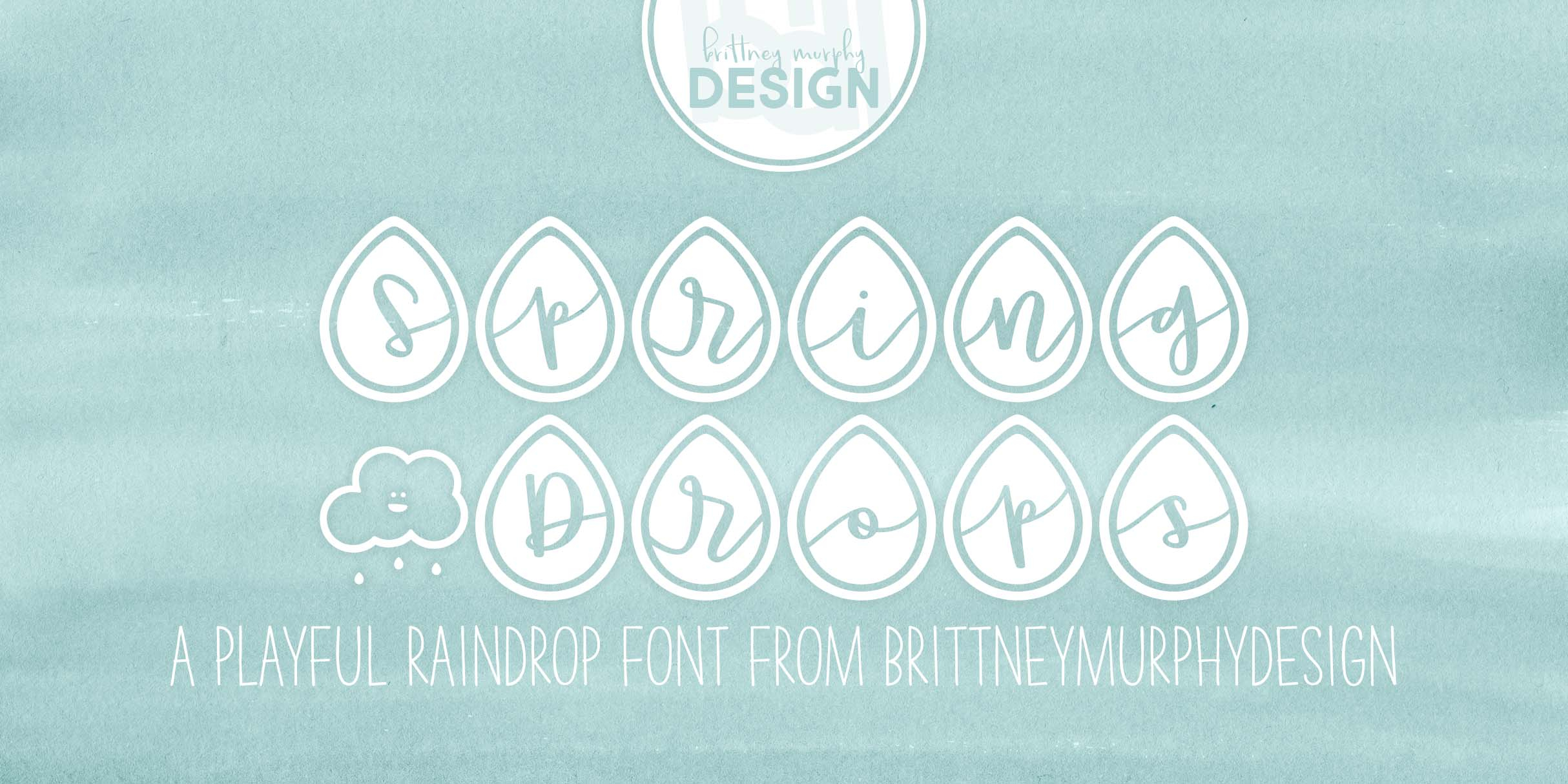
Spring Drops
Designed by Brittney Murphy, Spring Drops is an arts and crafts and novelty font family published by Brittney Murphy Design.
Spring Drops features cursive letters encased in outlined rain-drop shapes. Perfect for cute springtime decorations!
Use the asterisk * for the cloud character!